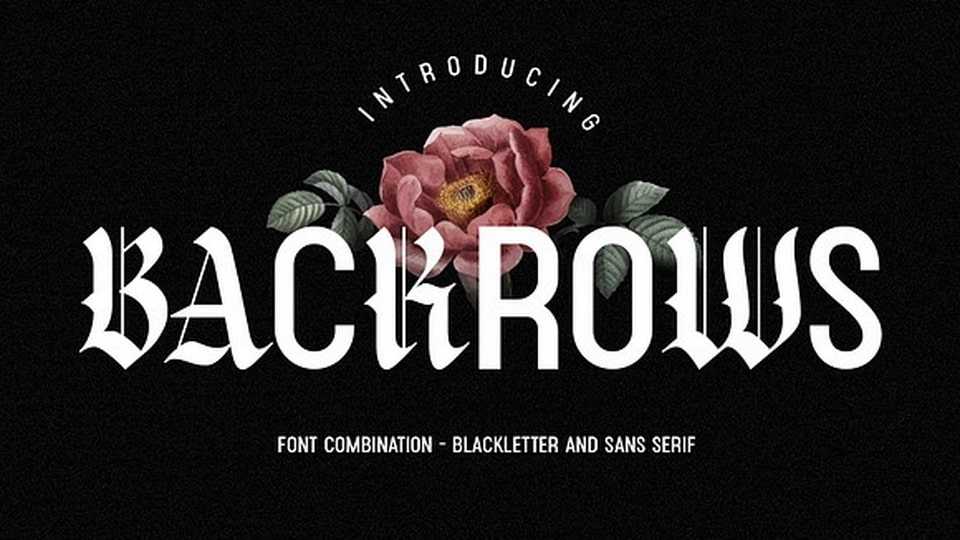
Download Backrows font, a captivating blend of blackletter and sans serif characters. This unique combination offers an elegant and modern aesthetic, allowing for versatile design possibilities.